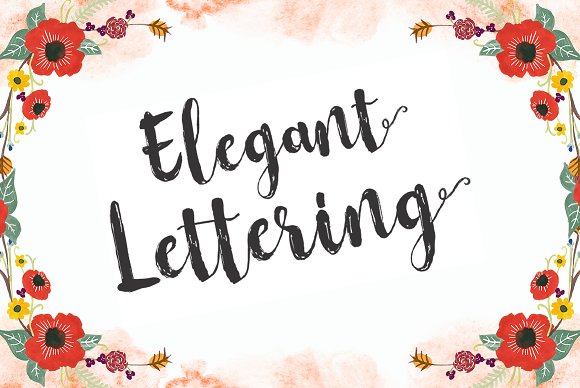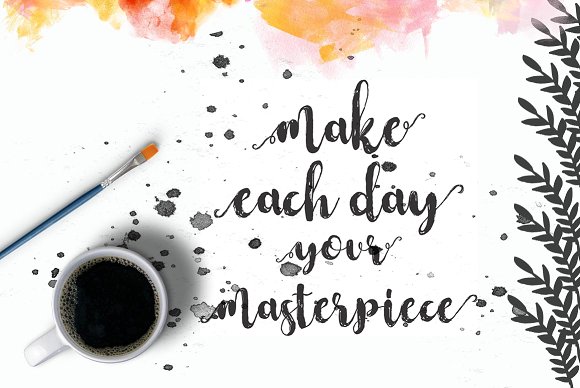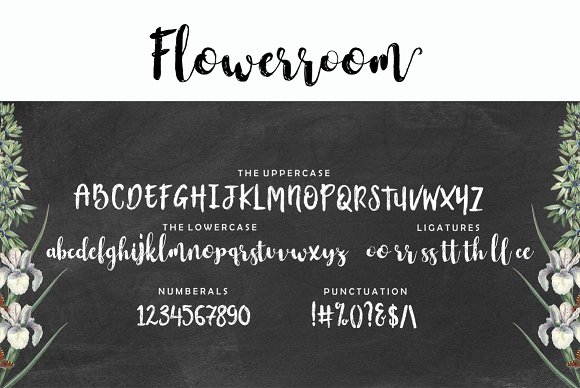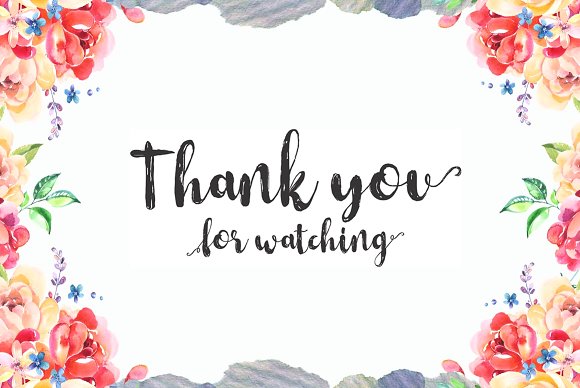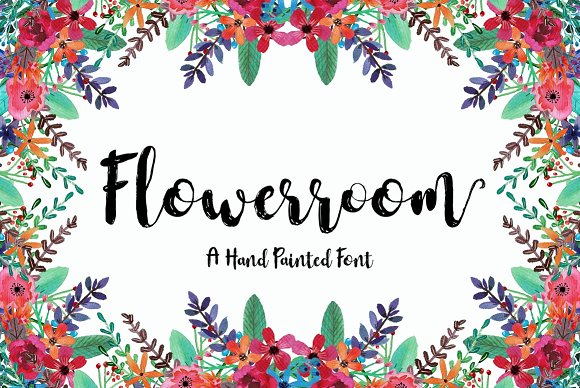
Introducing Flowerroom Font: A Beautiful Handwritten Font by Area Type
Are you a designer or crafter looking for a unique and elegant font to add a personal touch to your projects? Look no further than Flowerroom Font, a stunning handwritten font created by Area Type. In this article, we’ll dive into the world of Flowerroom Font, exploring its features, benefits, and uses, as well as provide tips and inspiration for incorporating it into your designs.
What is Flowerroom Font?
Flowerroom Font is a beautiful handwritten font designed by Area Type, a renowned font foundry known for creating high-quality, unique typefaces. This font is characterized by its elegant, cursive script with a personal and intimate feel. Each letter is carefully crafted to resemble handwriting, making it perfect for adding a touch of warmth and personality to your designs.
Features of Flowerroom Font
So, what makes Flowerroom Font so special? Here are some of its key features:
- Handwritten style: Flowerroom Font is a genuine handwritten font, with each letter and number carefully crafted to resemble natural handwriting.
- Elegant and cursive: The font features a beautiful, flowing script that adds a touch of elegance and sophistication to any design.
- Personal and intimate: The handwritten style of Flowerroom Font gives it a personal and intimate feel, making it perfect for designs that require a human touch.
- High-quality: As with all Area Type fonts, Flowerroom Font is of exceptionally high quality, with crisp and clear letterforms that will look great in any design.
Benefits of Using Flowerroom Font
So, why should you choose Flowerroom Font for your next design project? Here are just a few benefits of using this beautiful font:
- Adds a personal touch: Flowerroom Font is perfect for designers and crafters who want to add a personal touch to their projects, whether it’s a wedding invitation, a scrapbook page, or a branding design.
- Versatile: This font is incredibly versatile, and can be used in a wide range of design projects, from digital designs to print materials.
- Elegant and sophisticated: Flowerroom Font adds a touch of elegance and sophistication to any design, making it perfect for high-end branding, luxury packaging, and more.
- Easy to read: Despite its elegant and cursive style, Flowerroom Font is surprisingly easy to read, making it perfect for body text as well as headings.
Using Flowerroom Font in Your Designs
So, how can you use Flowerroom Font in your designs? Here are a few ideas to get you started:
- Wedding invitations: Flowerroom Font is perfect for wedding invitations, with its elegant and cursive style adding a touch of romance and sophistication.
- Branding and packaging: This font is ideal for high-end branding and luxury packaging, adding a touch of elegance and sophistication to any design.
- Scrapbooking: Flowerroom Font is a great choice for scrapbooking, with its personal and intimate feel adding a touch of warmth and personality to any page.
- Digital designs: This font is perfect for digital designs, including social media graphics, blog posts, and more.
Tips for Working with Flowerroom Font
Here are a few tips for working with Flowerroom Font:
- Use it sparingly: While Flowerroom Font is beautiful, it can be overwhelming if used too much. Use it sparingly to add a touch of elegance and sophistication to your designs.
- Pair it with a sans-serif font: For body text, pair Flowerroom Font with a sans-serif font to create a beautiful contrast.
- Experiment with colors: Flowerroom Font looks great in a range of colors, from soft pastels to rich jewel tones. Experiment with different colors to find the perfect look for your design.
| Font Name | Flowerroom Font |
| Author | Area Type |
Flowerroom Font is a beautiful handwritten font created by Area Type, perfect for designers and crafters who want to add a personal touch to their projects. With its elegant and cursive style, personal and intimate feel, and high-quality letterforms, this font is sure to impress. Whether you’re designing a wedding invitation, a branding campaign, or a scrapbook page, Flowerroom Font is a great choice. So why not give it a try and see the difference it can make in your designs?